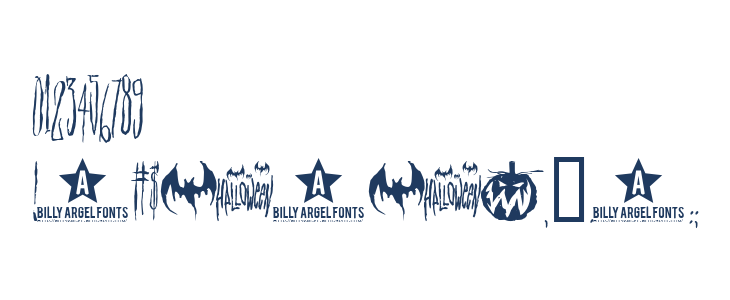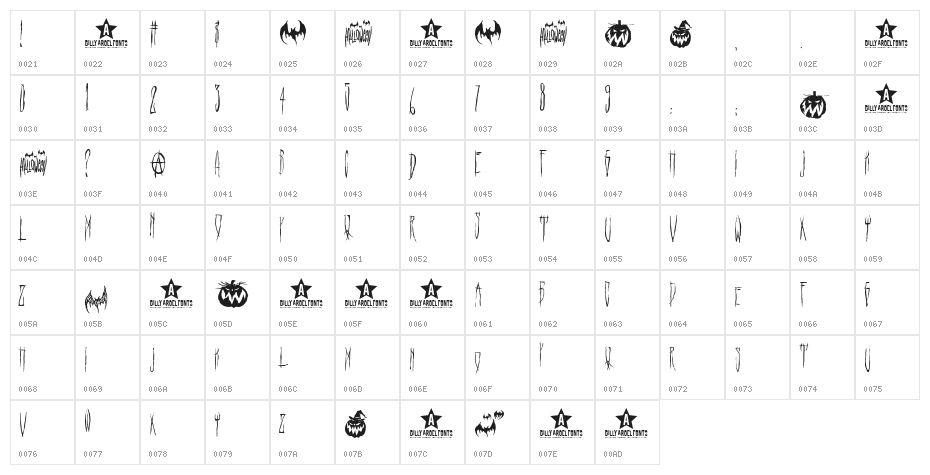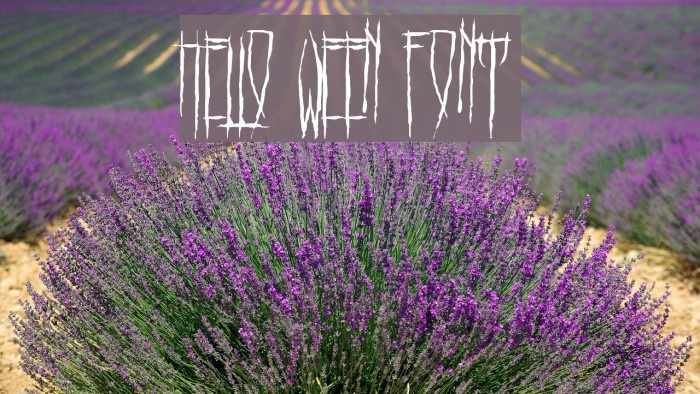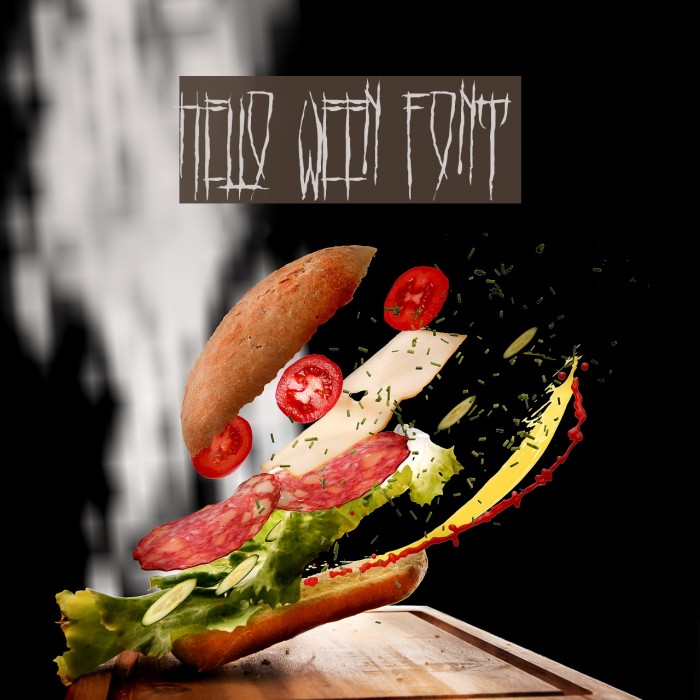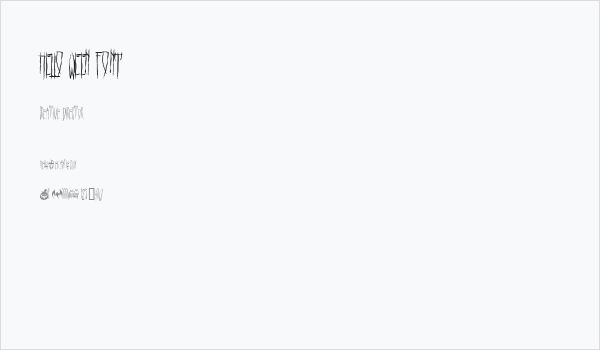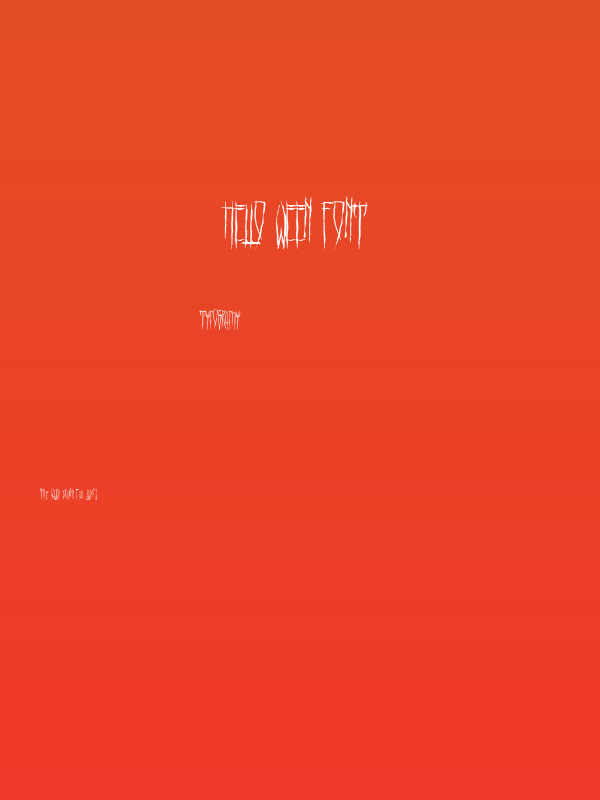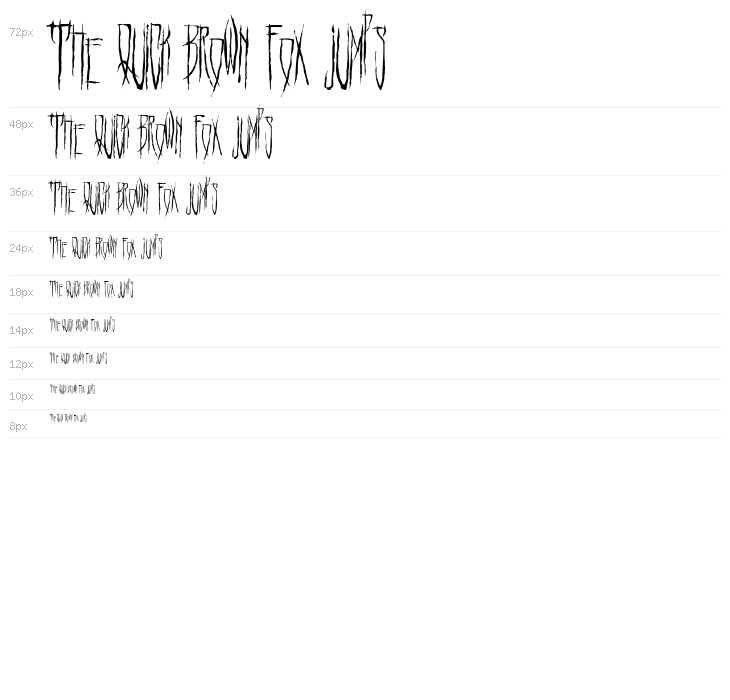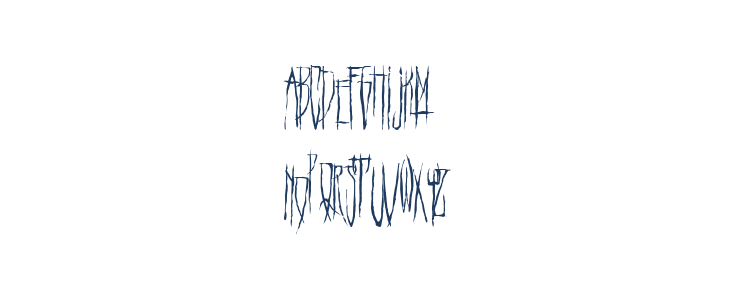
HELLO WEEN FONT Font
HELLO WEEN FONT Description
This font features a spooky, jagged design that evokes a sense of horror and Halloween themes. The letters are elongated and appear as if they are dripping or scratched, creating an eerie and unsettling effect. The uppercase and lowercase letters maintain a consistent style, with sharp edges and irregular strokes that enhance the font's creepy aesthetic. The numbers follow the same design principles, ensuring a cohesive look across all characters. This font is perfect for projects that require a chilling and atmospheric touch, such as Halloween-themed posters, horror movie titles, or haunted house invitations.
| Proposed Projects | Halloween posters, horror movie titles, haunted house invitations. |